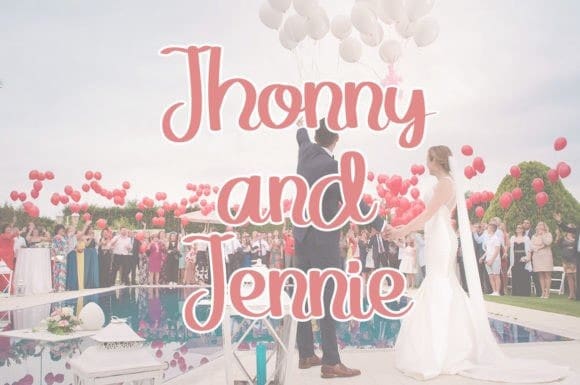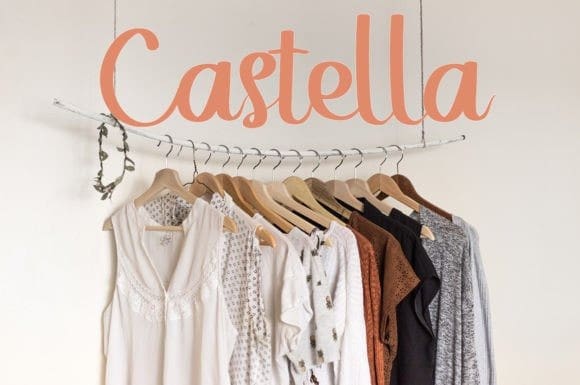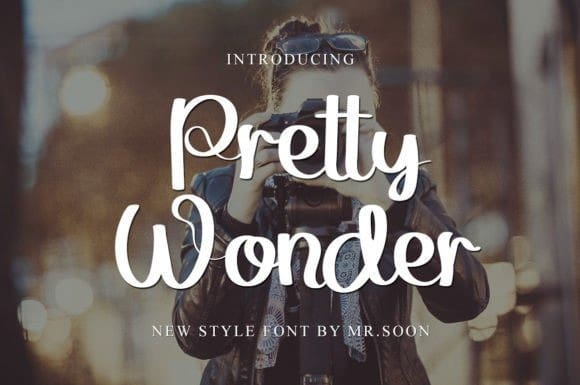
Pretty Wonder Font
Pretty Wonder Font is a beautiful and sweet script font. It is fresh, clean, and elegant. This font will look amazing in a great number of projects, both formal and informal. It will add an incredibly joyful touch to your designs.